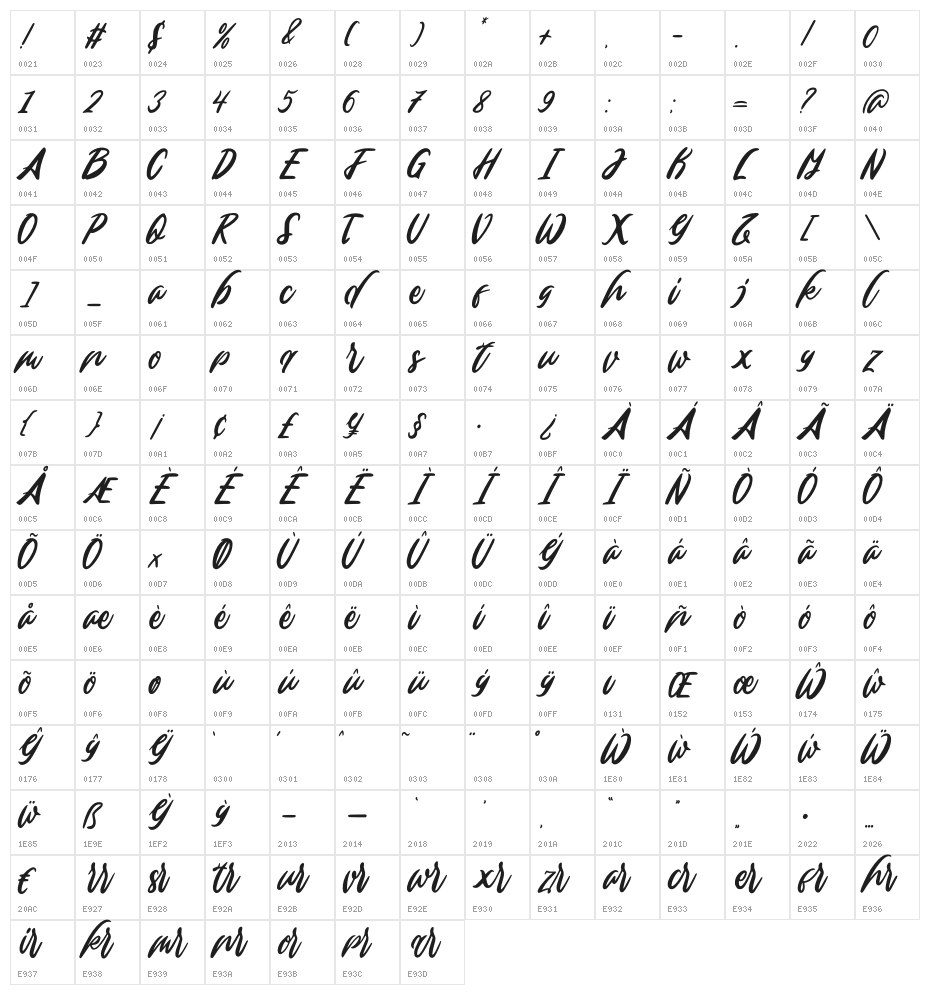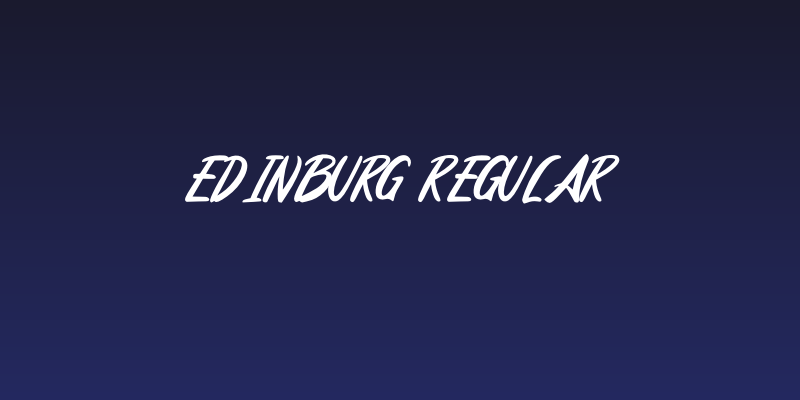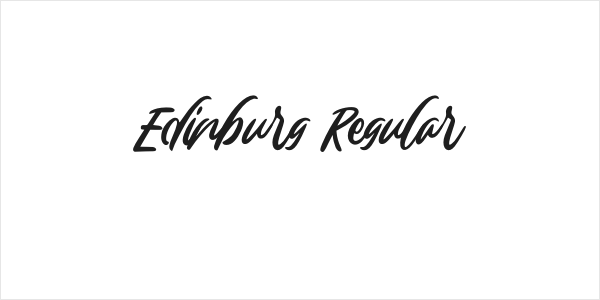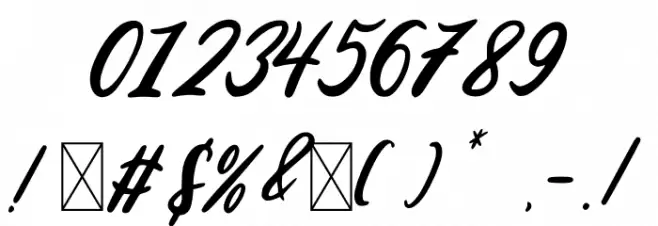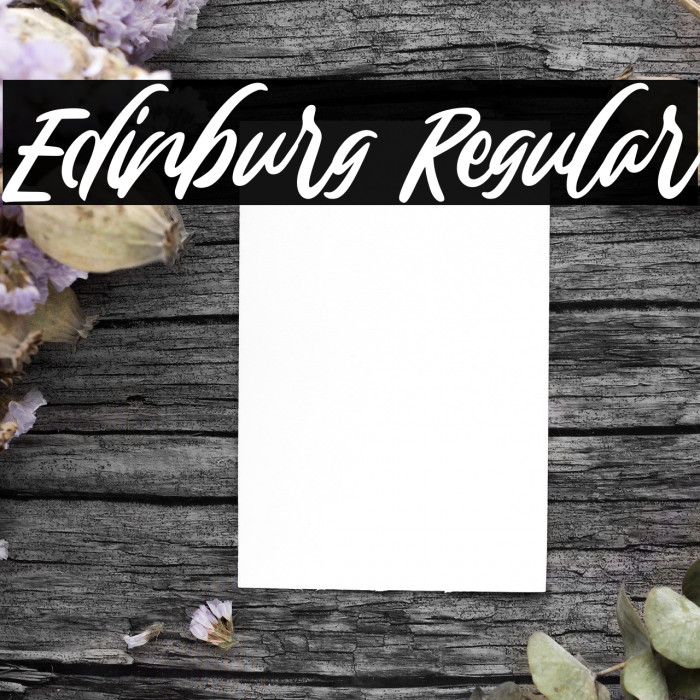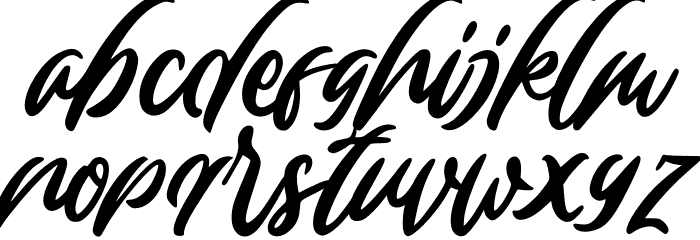
Edinburg Regular Font
Edinburg Regular Description
This font exudes a dynamic and energetic flair, characterized by its bold and flowing script style. The letters are crafted with a brush-like appearance, giving them a handwritten and artistic feel. The uppercase letters are particularly striking, with exaggerated curves and a sense of movement that adds to the font's expressive nature. The lowercase letters maintain this fluidity, creating a cohesive and harmonious look. The numbers and special characters are designed with the same attention to detail, ensuring consistency throughout. This font is perfect for projects that require a personal touch or a creative edge.
| Use Case | Logos, Headlines, Artistic projects |
| Proposed Projects | Ideal for branding, invitations, greeting cards, and artistic projects that require a personal and creative touch. |